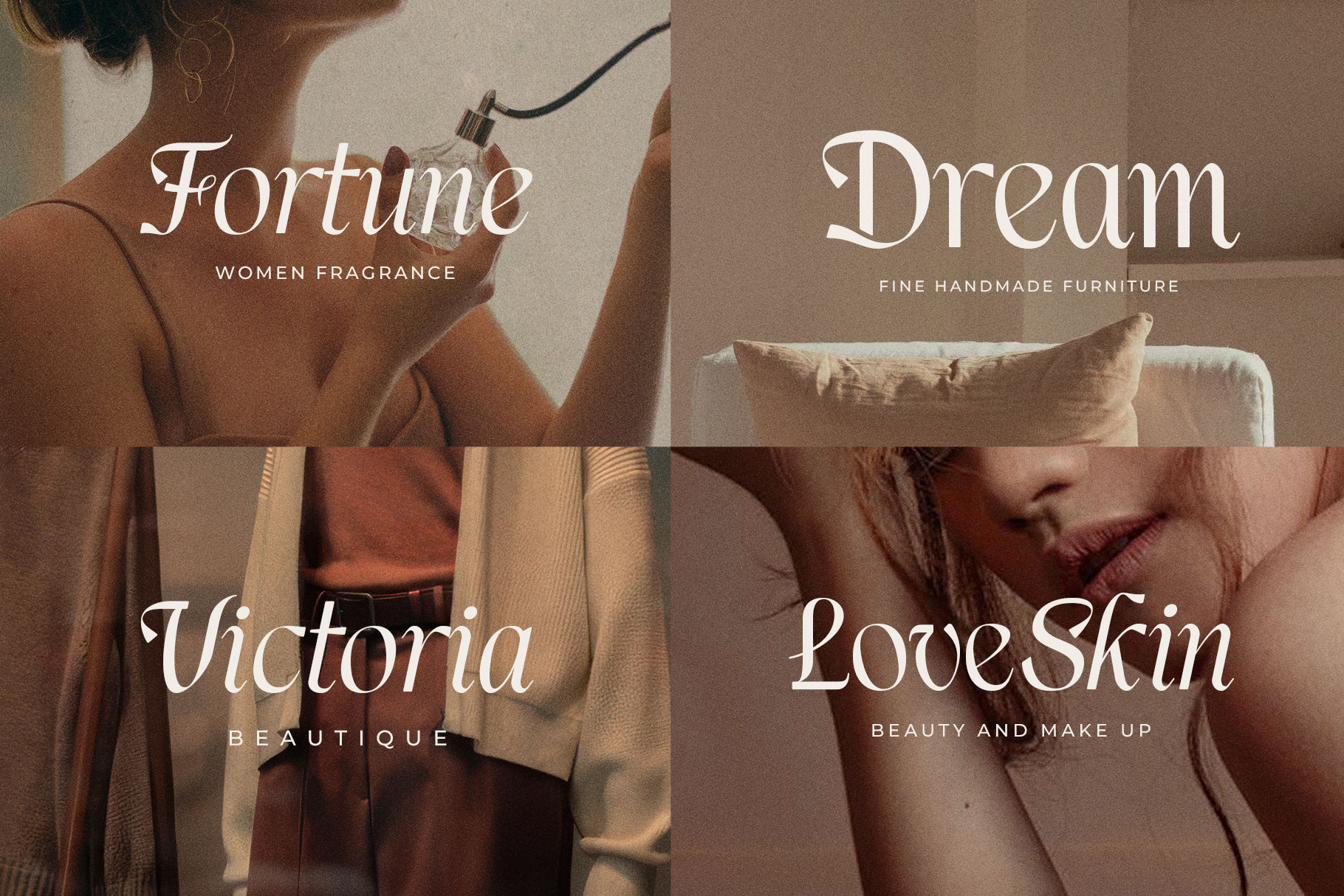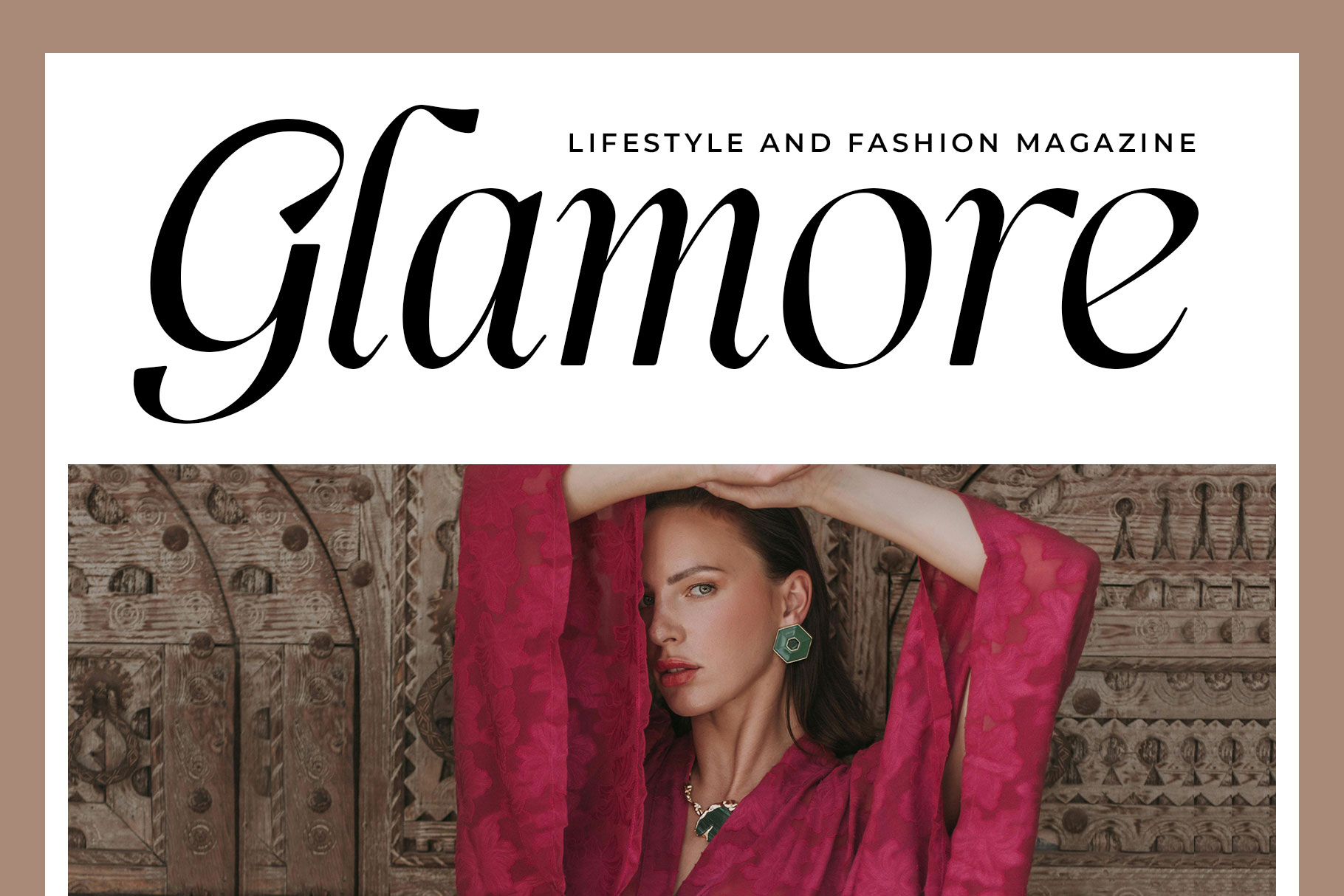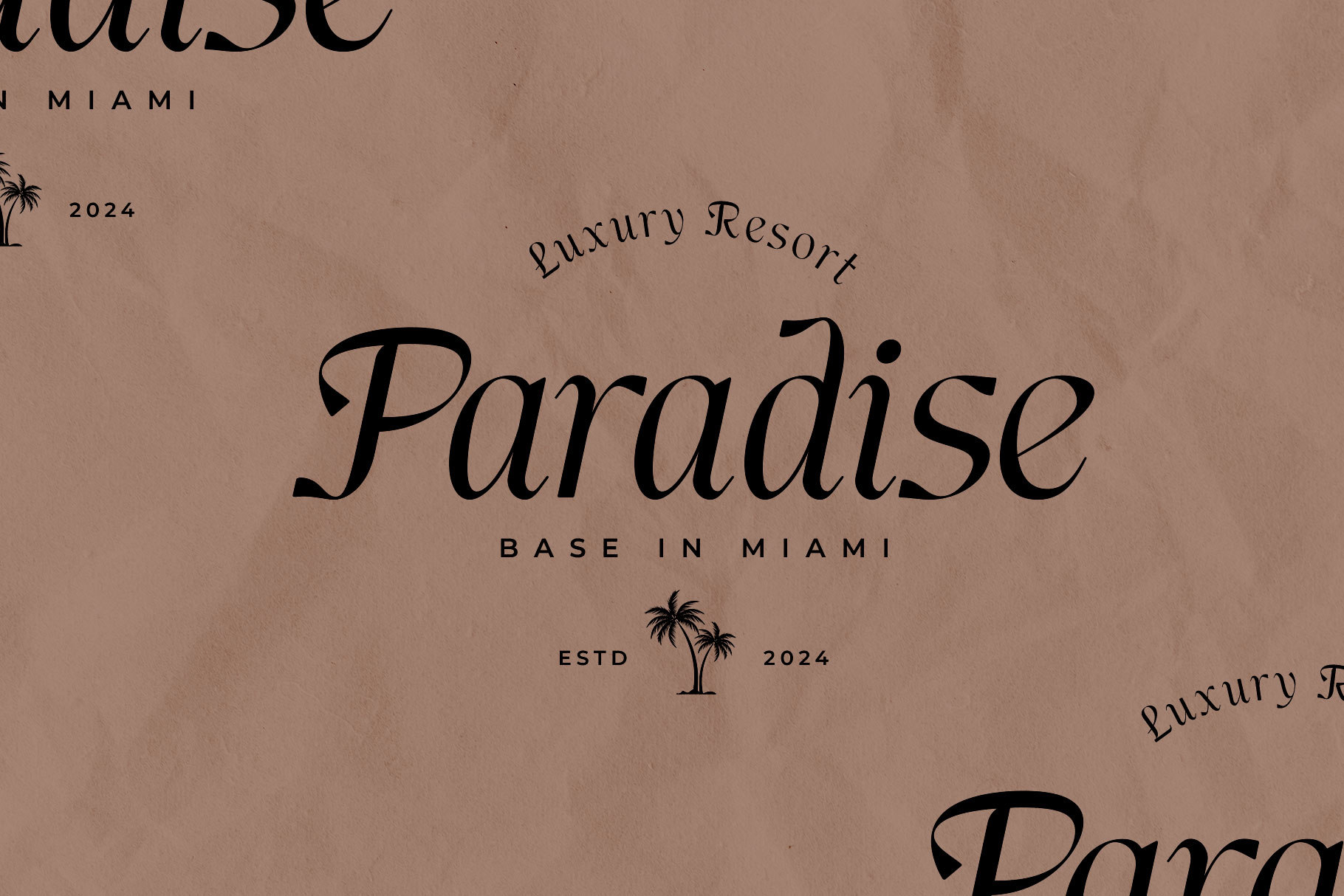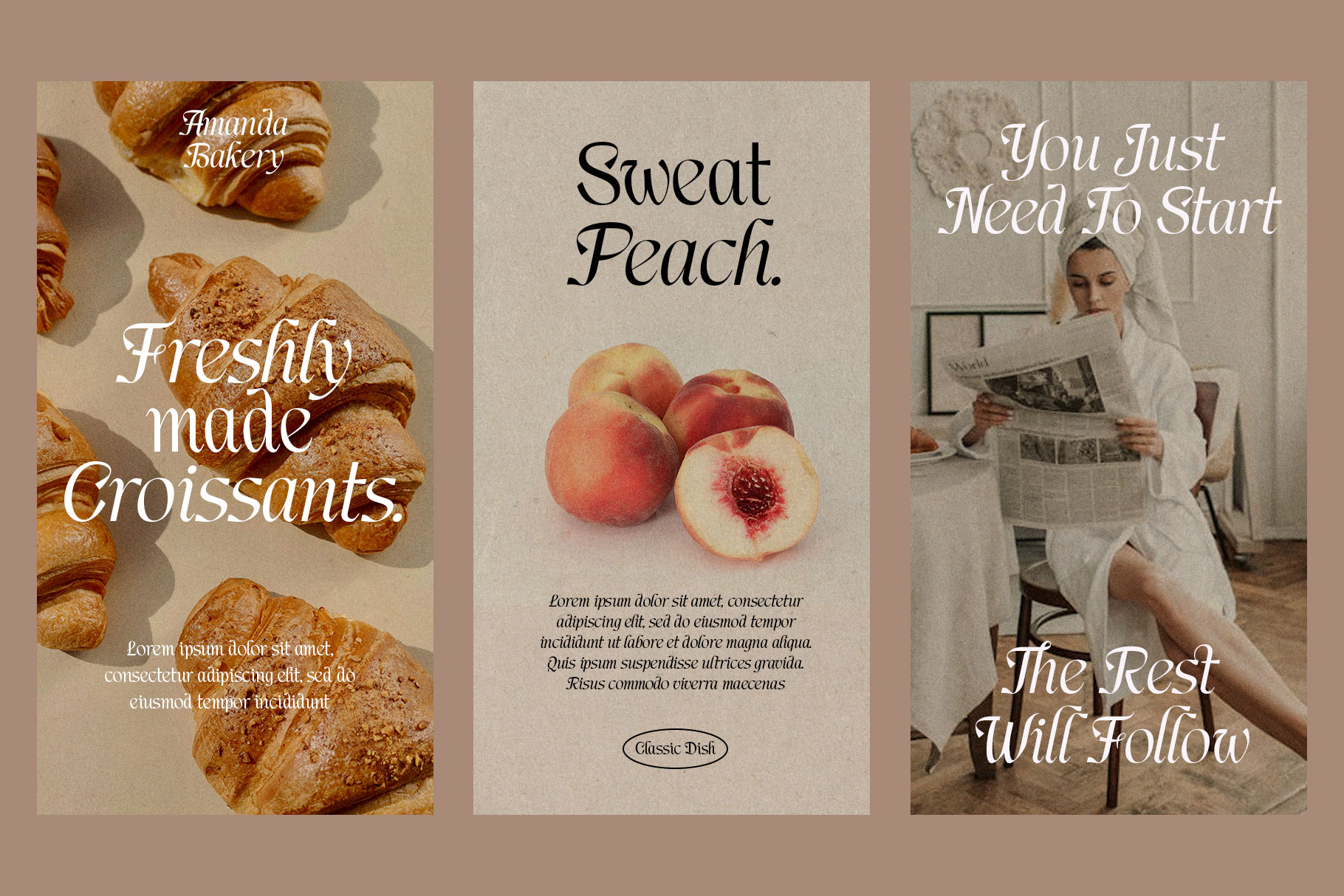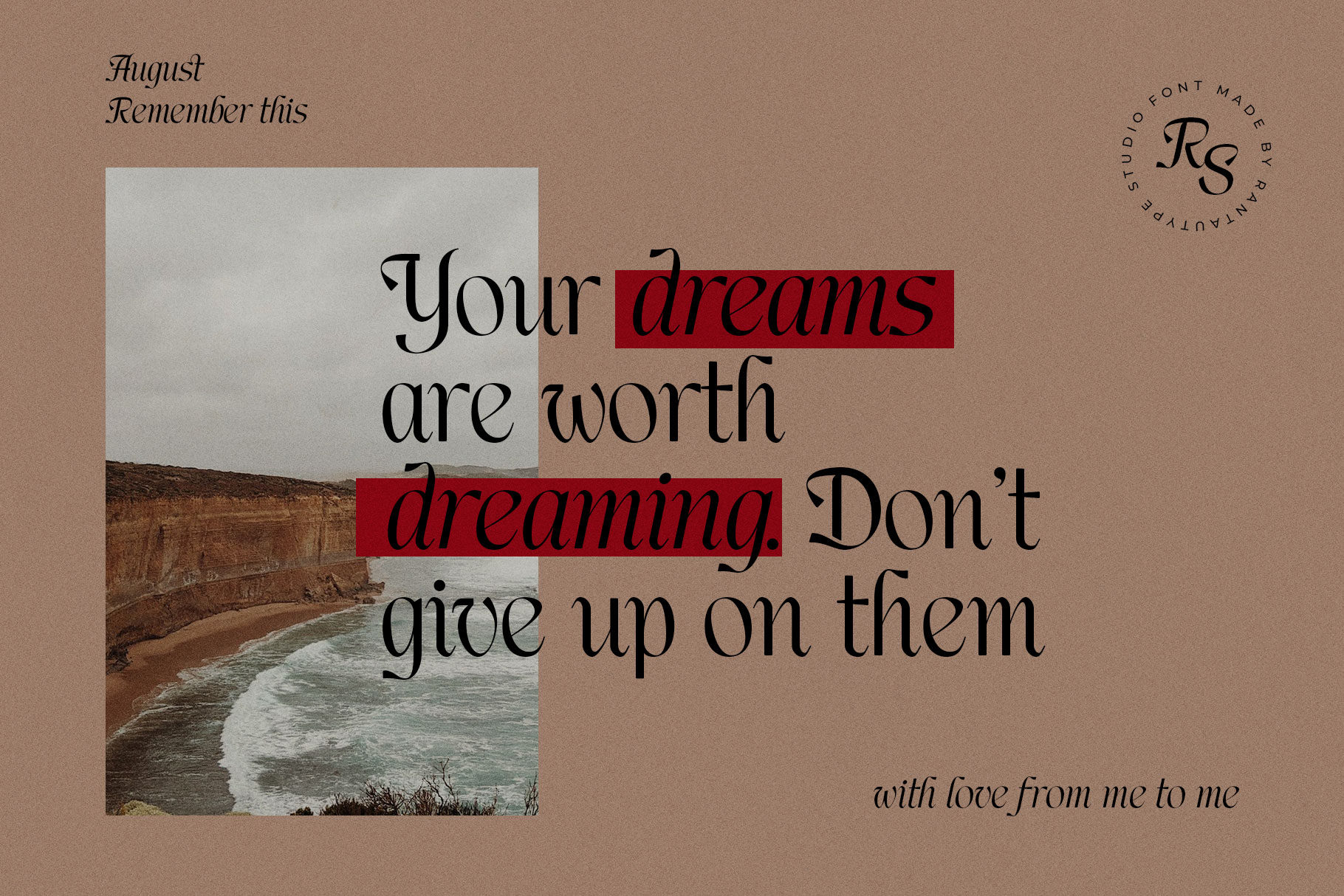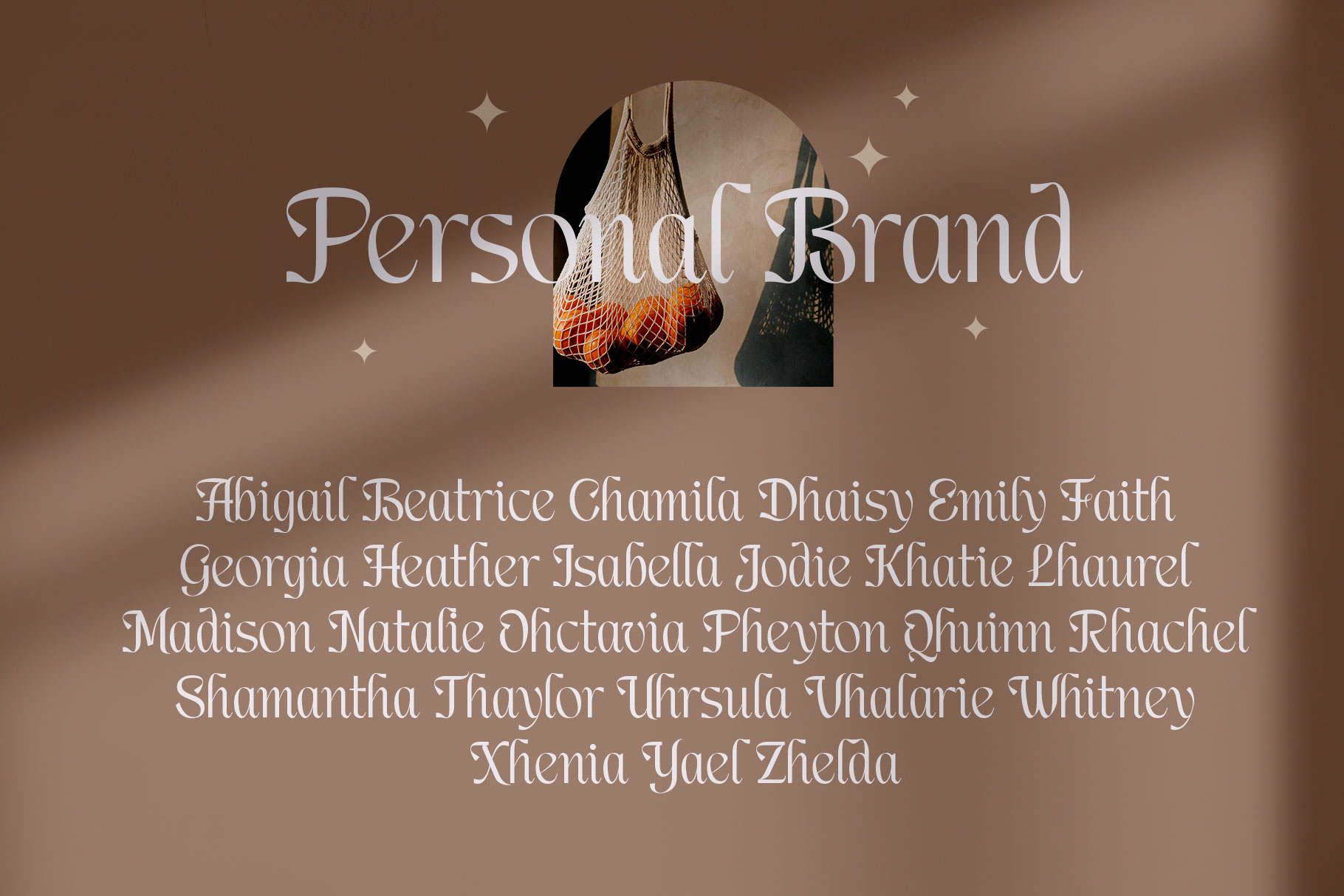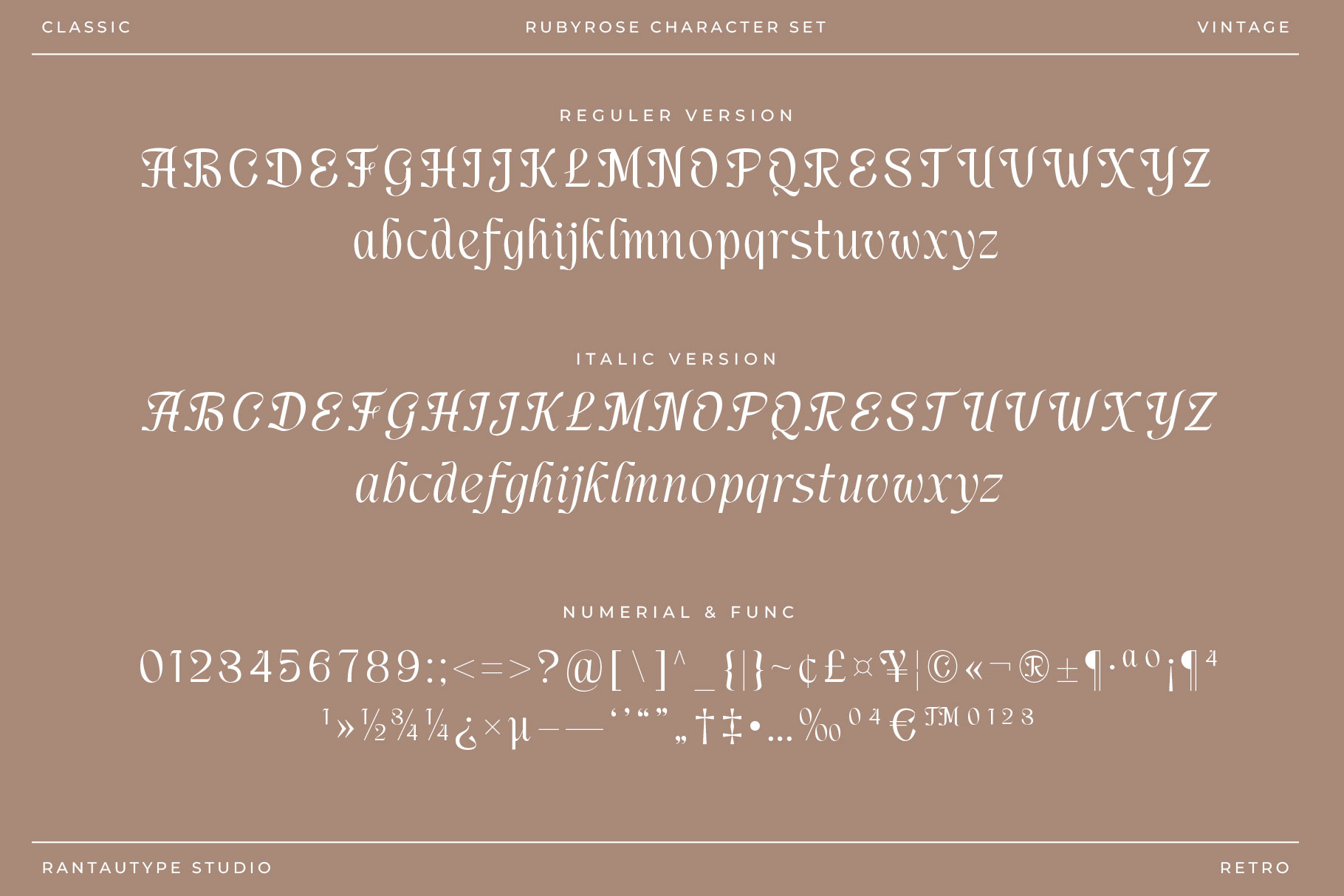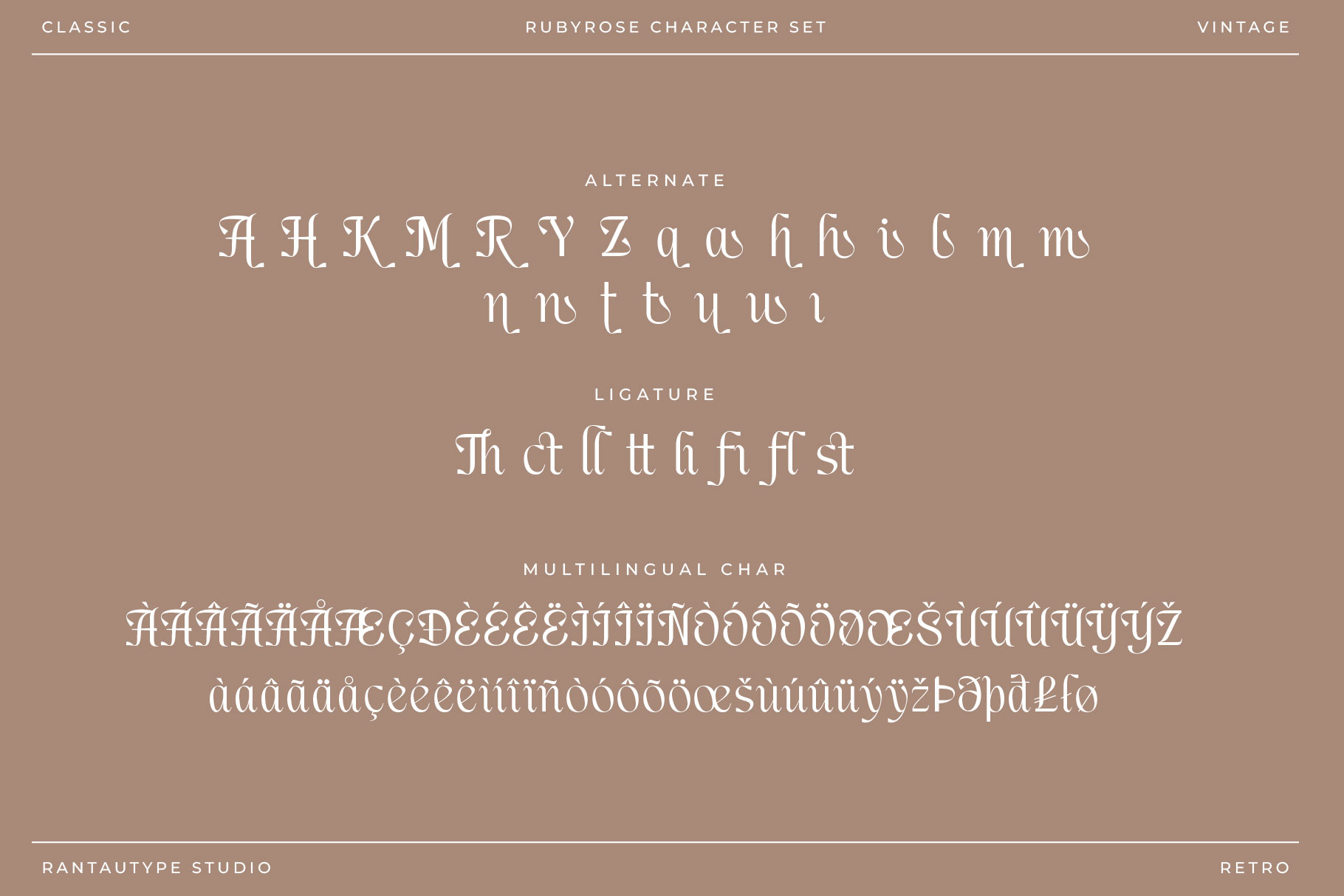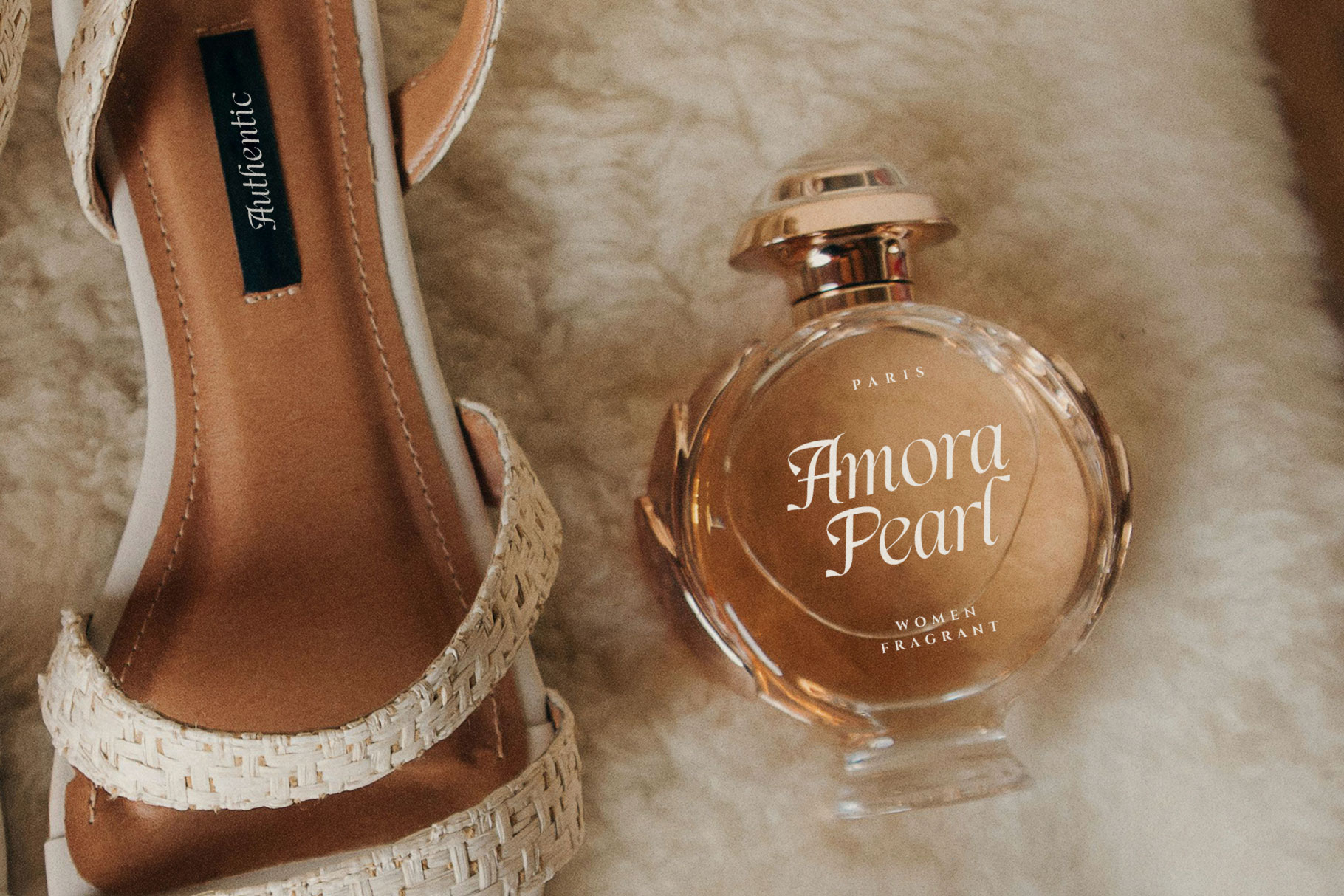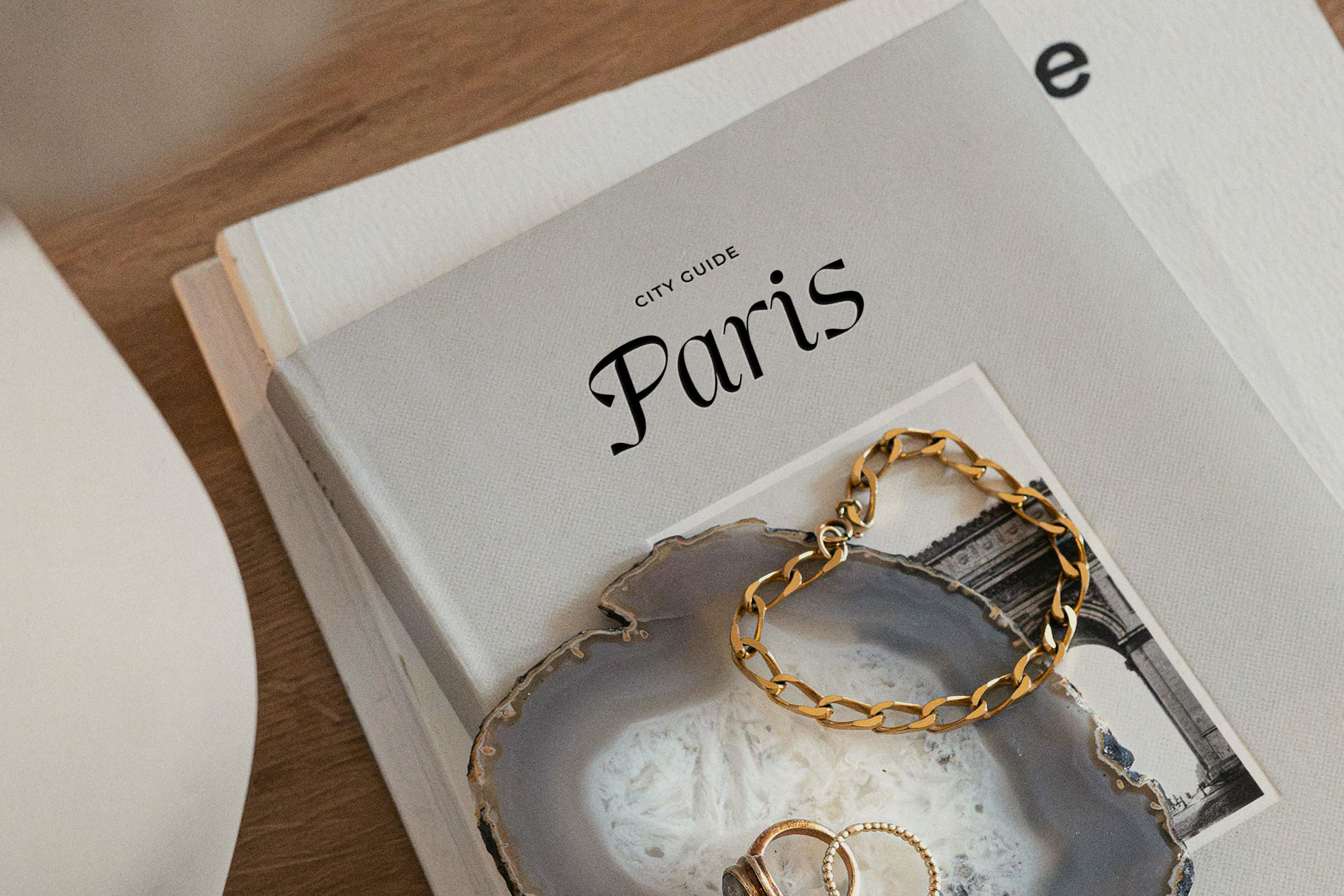
Rubyrose Vintage Serif Font
Rubyrose is old vintage serif font with classic look or can be modern to. Rubyrose come with unique contrast shape make it memoriable. Rubyrose brings a touch of old fashioned and nostalgic vibe to branding, both come in two versions reguler and italic you can mix and match them to create creative design project.
Rubyrose is a perfectly choice for any creative endeavor, creating elegant, modern, classic, lifestyle design such as logotype, title, cover, branding, invitations, wedding designs, display and magazine, social media posts, advertisements, printed quotes, product packaging, corporate brand, product designs, labels, photography, watermarks, special events and any other project with elegant touch.